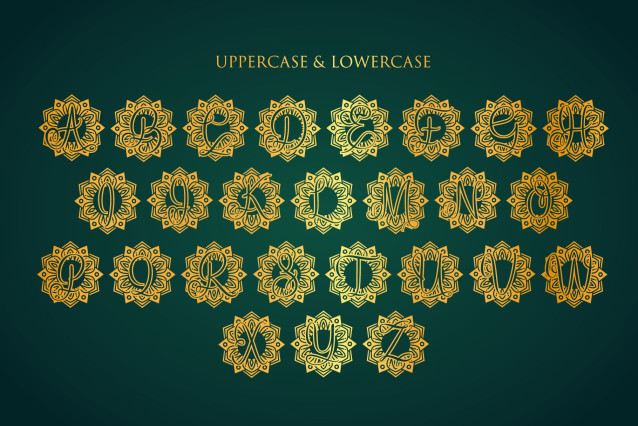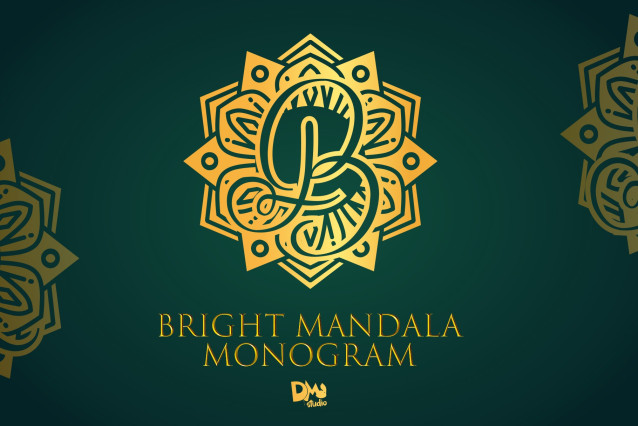
Bright Mandala Monogram Font
Bright Mandala Monogram is a luminous and expressive font that pairs bold monogram initials with intricate mandala flourishes. Inspired by light, creativity, and celebration, this font is ideal for festival branding, event invitations, handcrafted product packaging, and spiritual or wellness-themed designs. Its radiant energy and ornamental elegance make it a standout choice for both professional and personal projects.